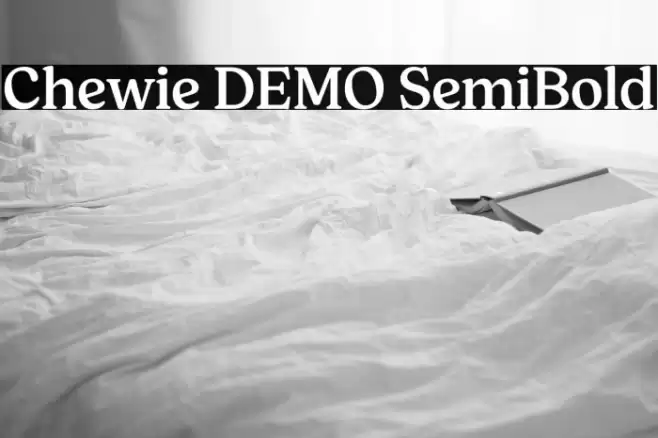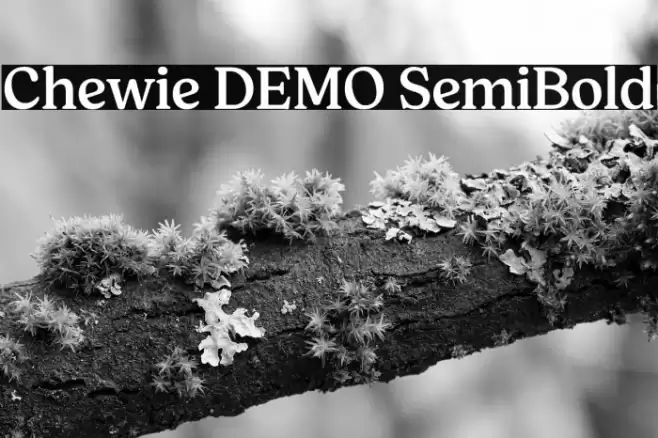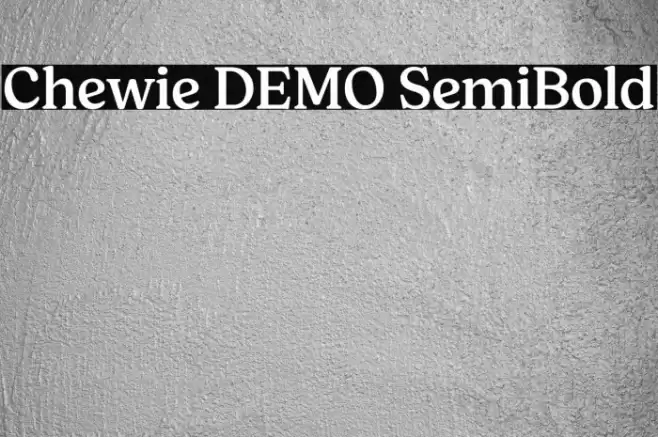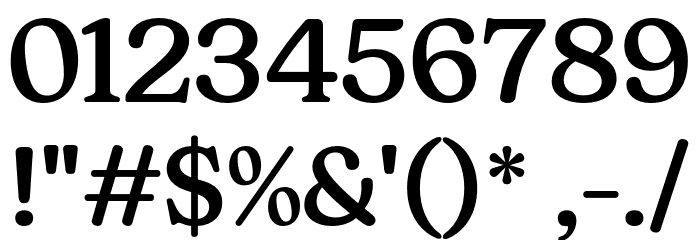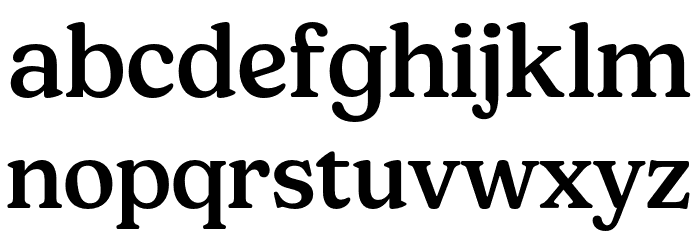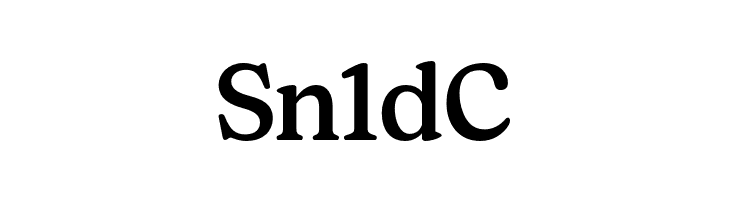
Chewie DEMO SemiBold Font
Chewie DEMO SemiBold Description
This font exhibits a classic serif style with a semi-bold weight, providing a strong and authoritative presence. The characters are well-defined with a moderate contrast between thick and thin strokes, enhancing readability while maintaining an elegant appearance. The uppercase letters are slightly taller than average, giving a sense of grandeur, while the lowercase letters maintain a traditional serif form. The numerals are clear and distinct, making them suitable for both text and display purposes. Special characters are designed with the same attention to detail, ensuring consistency across all glyphs.
A classic serif font with semi-bold weight and moderate contrast, ideal for elegant and readable text from Regular fonts.
- Proposed Projects: This font is perfect for editorial design, book covers, formal invitations, and branding projects that require a touch of sophistication.
- Overall Style: Classic